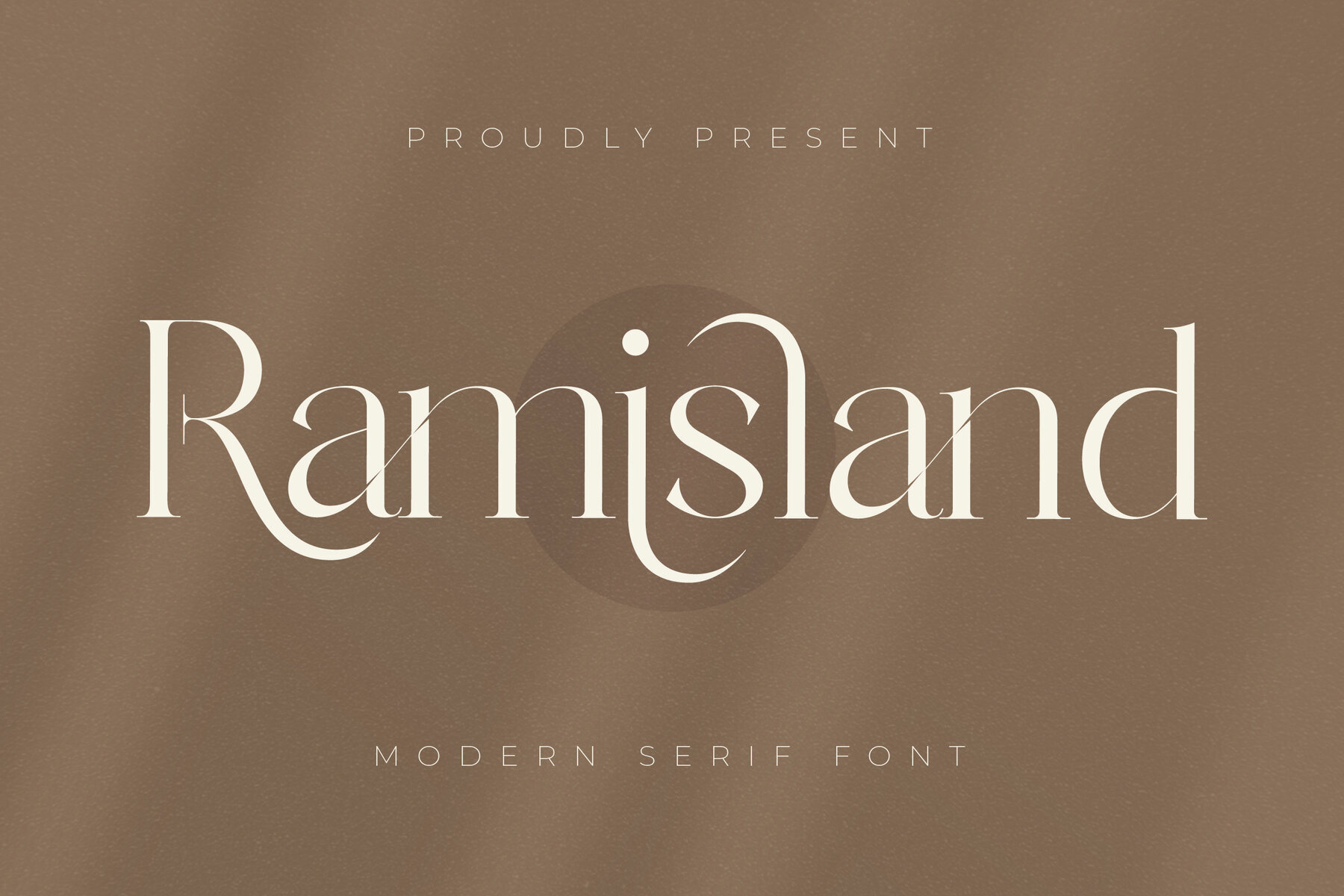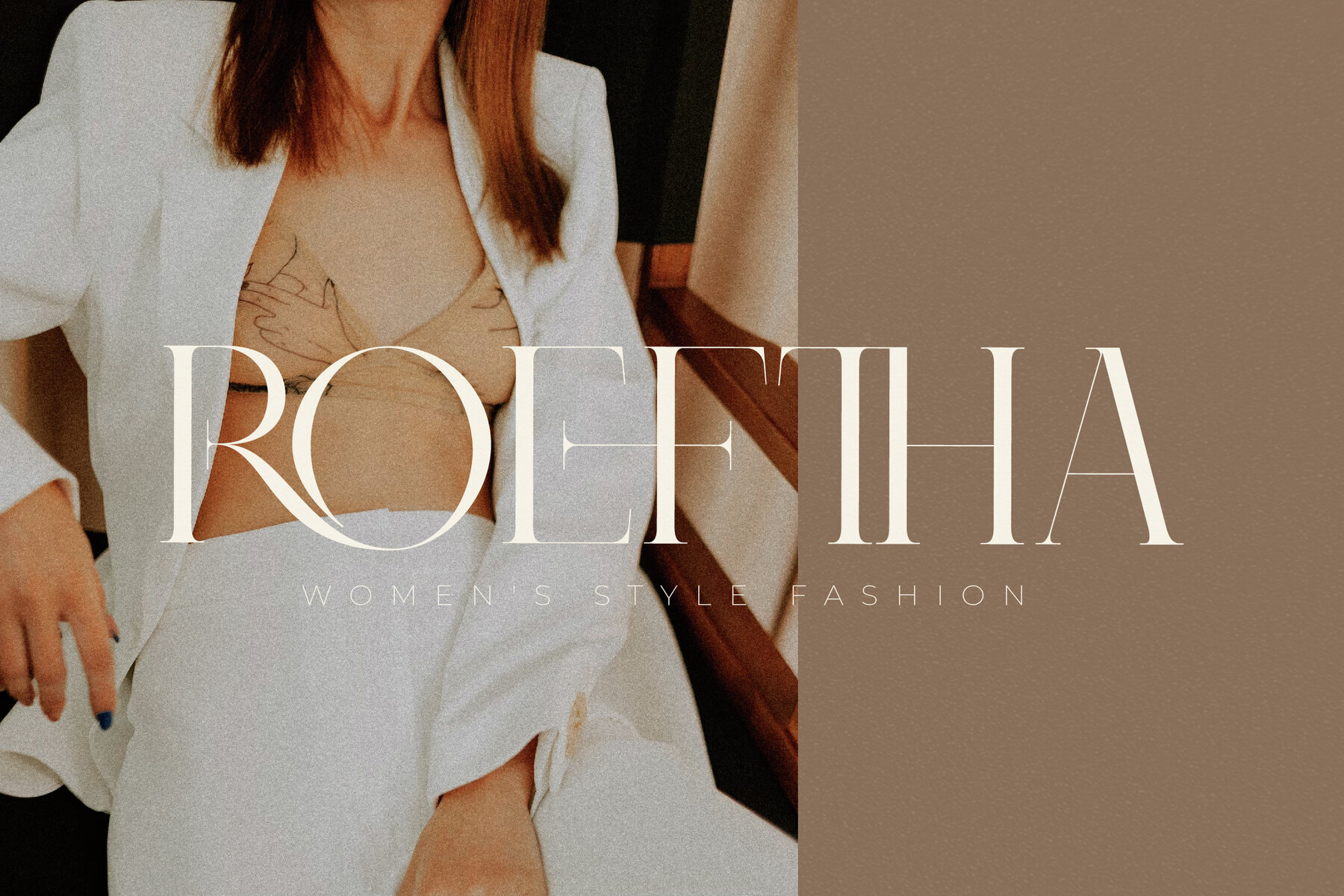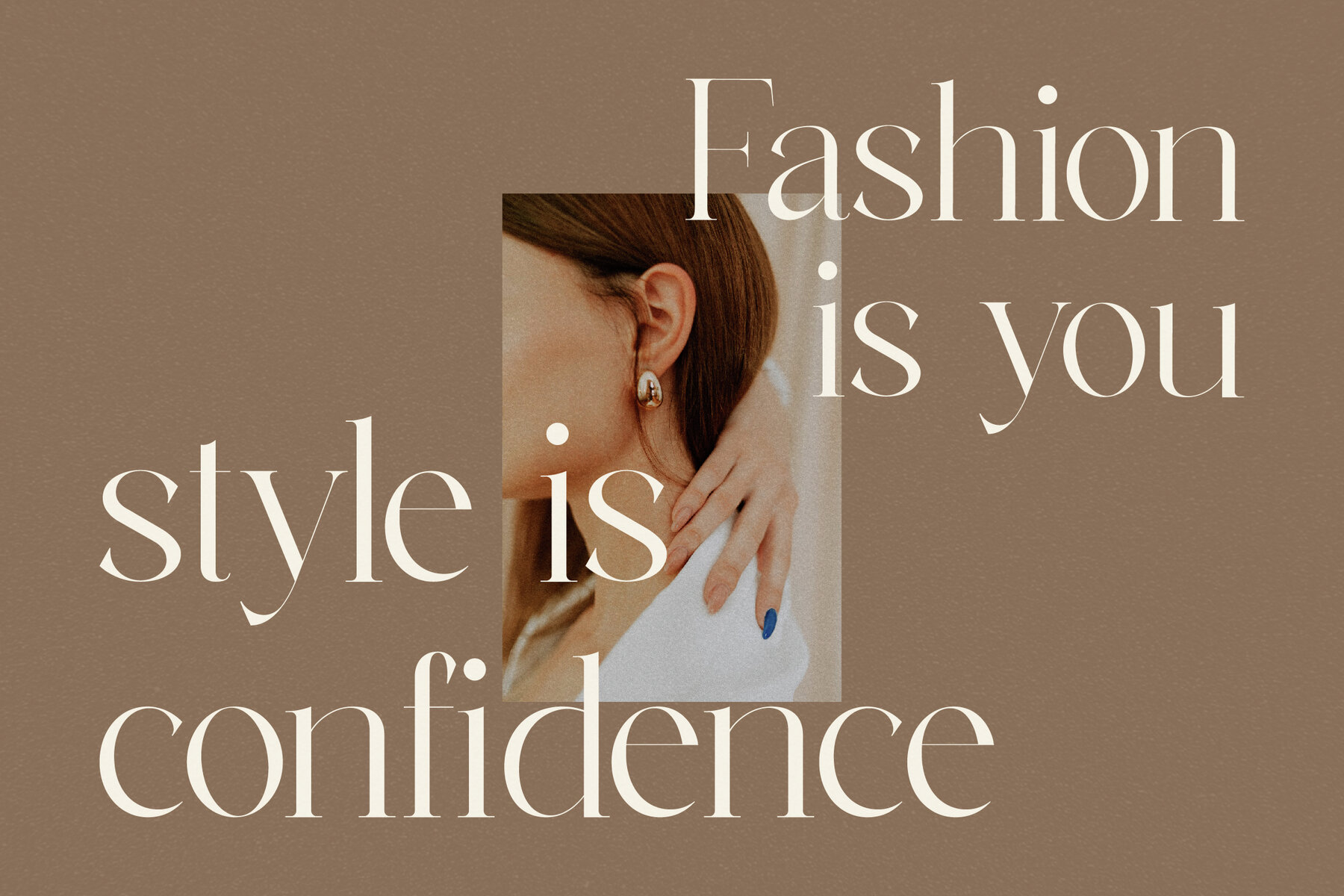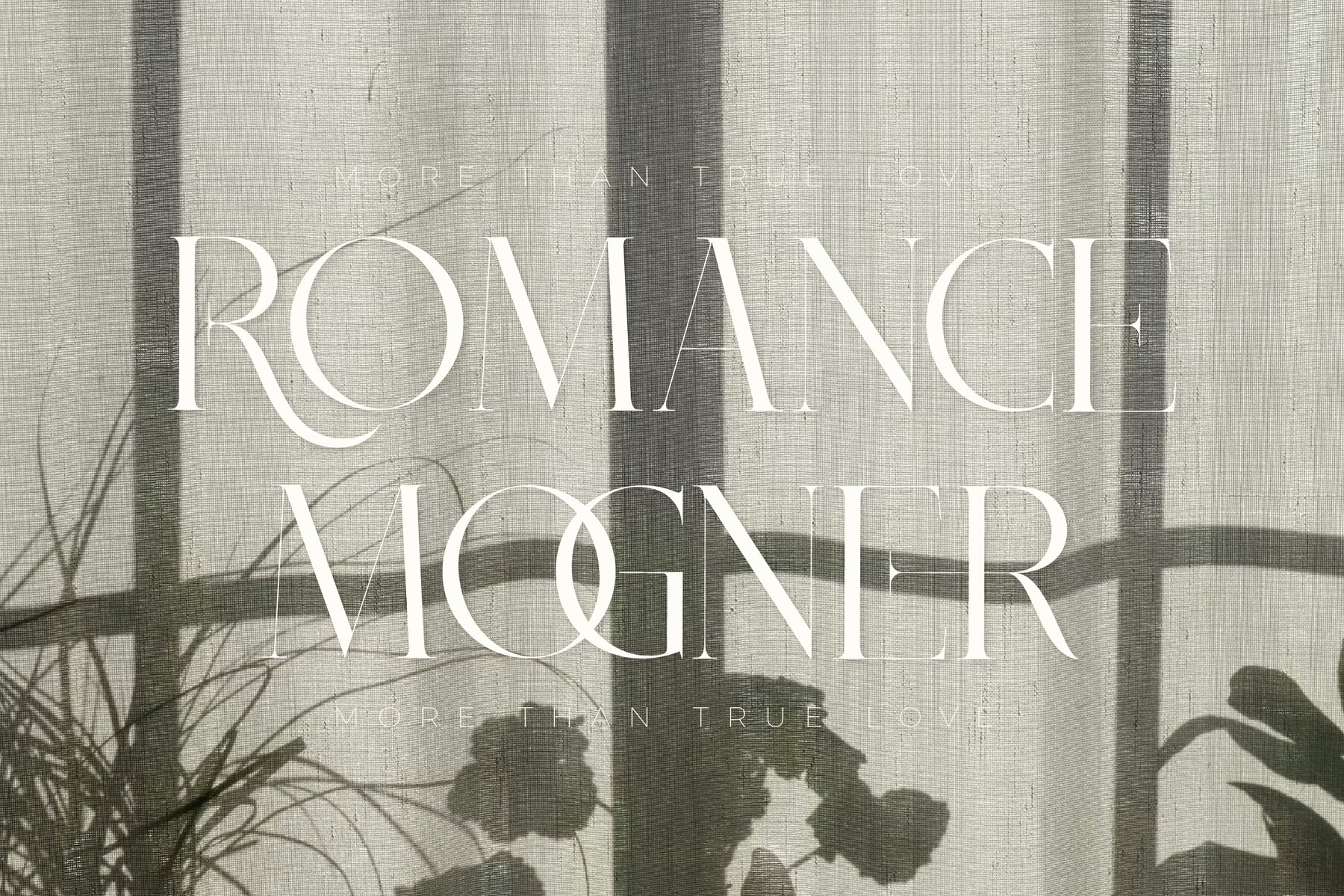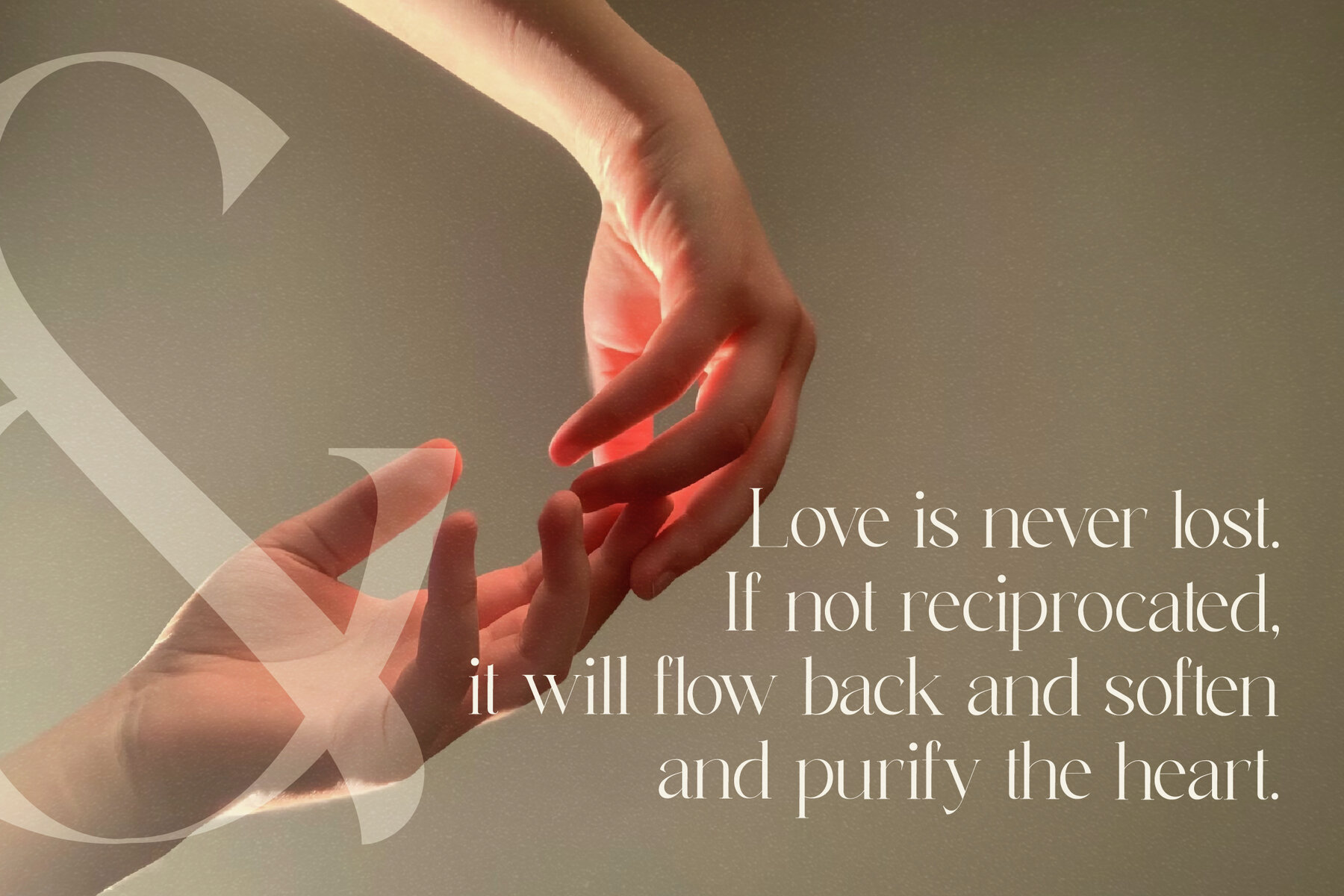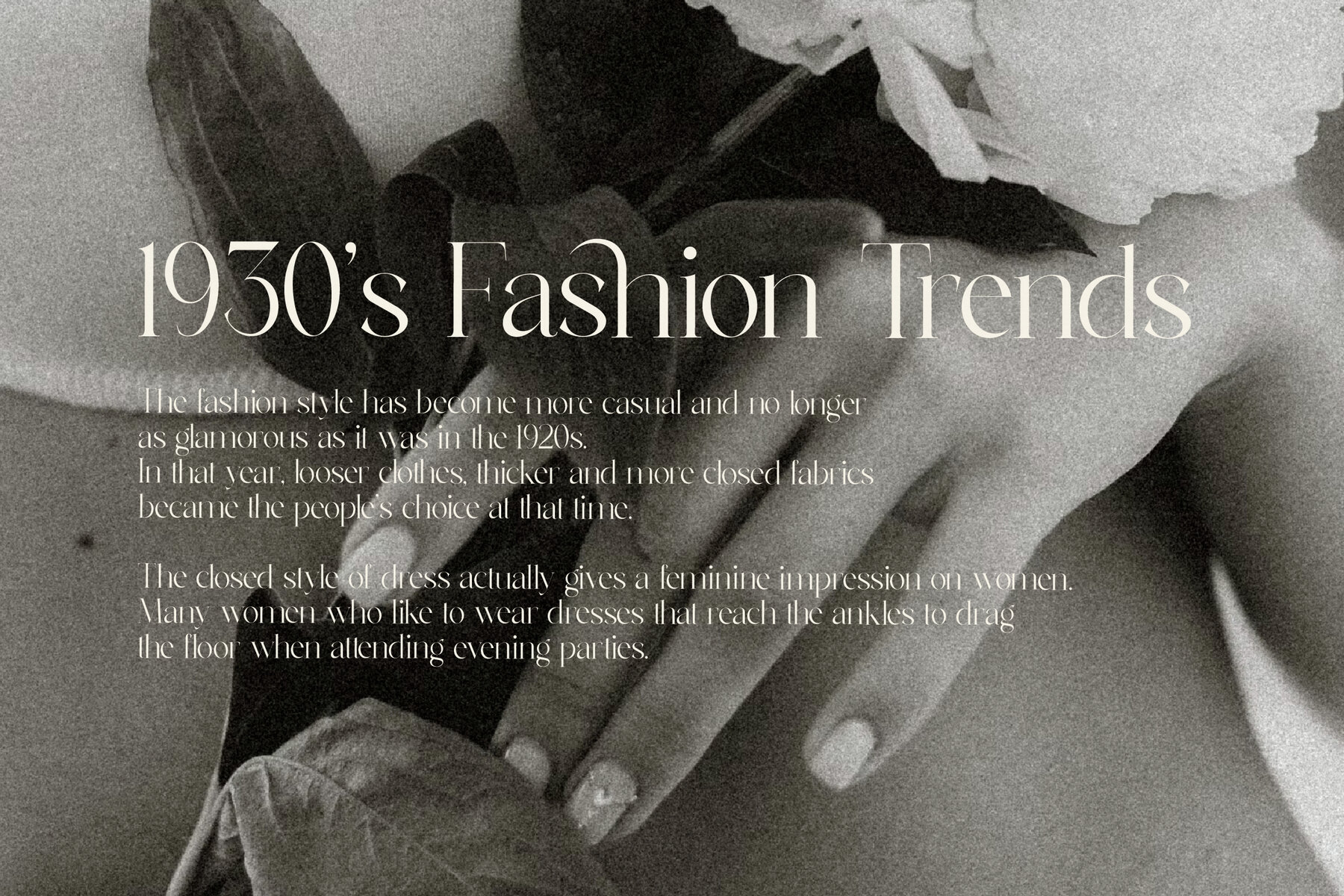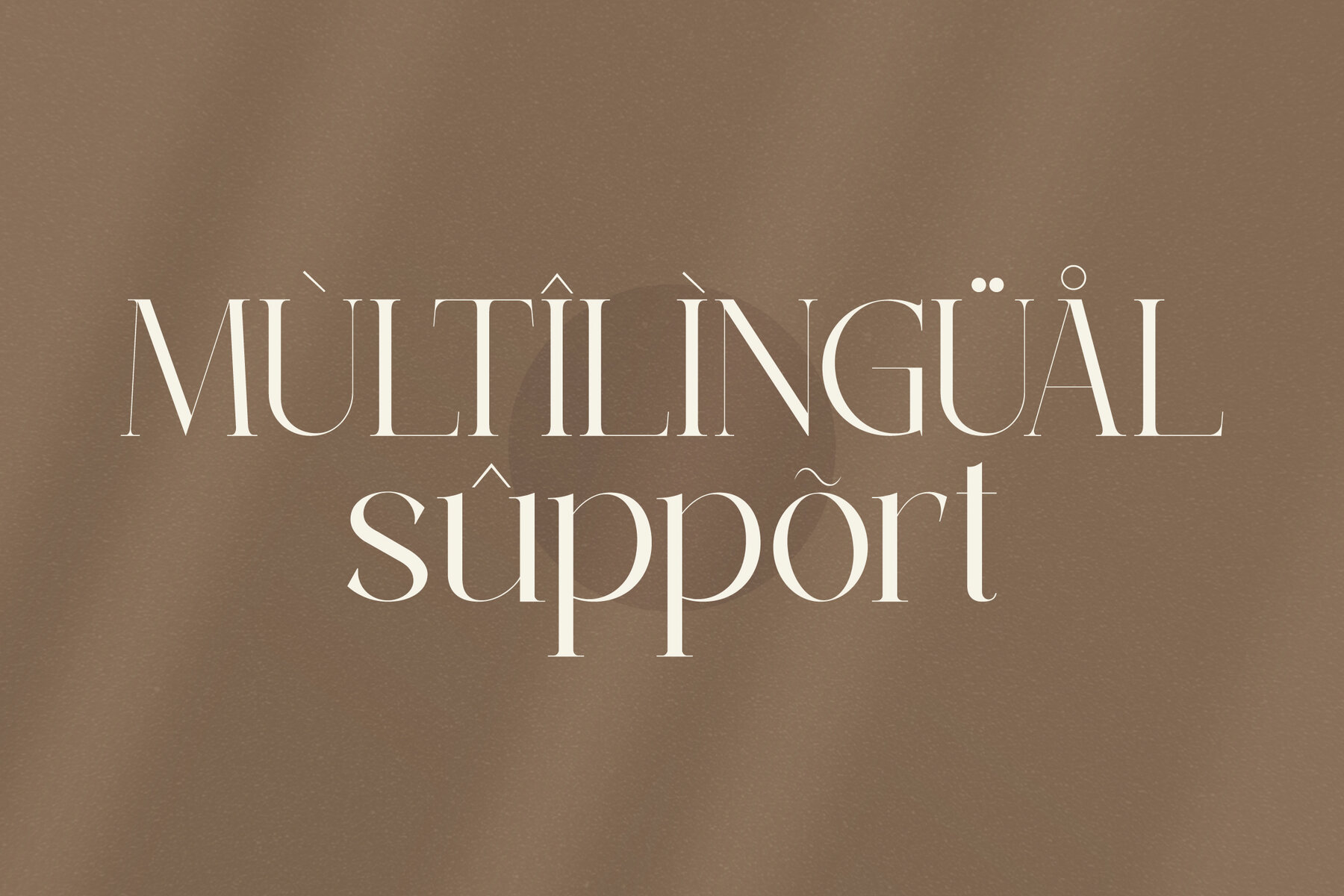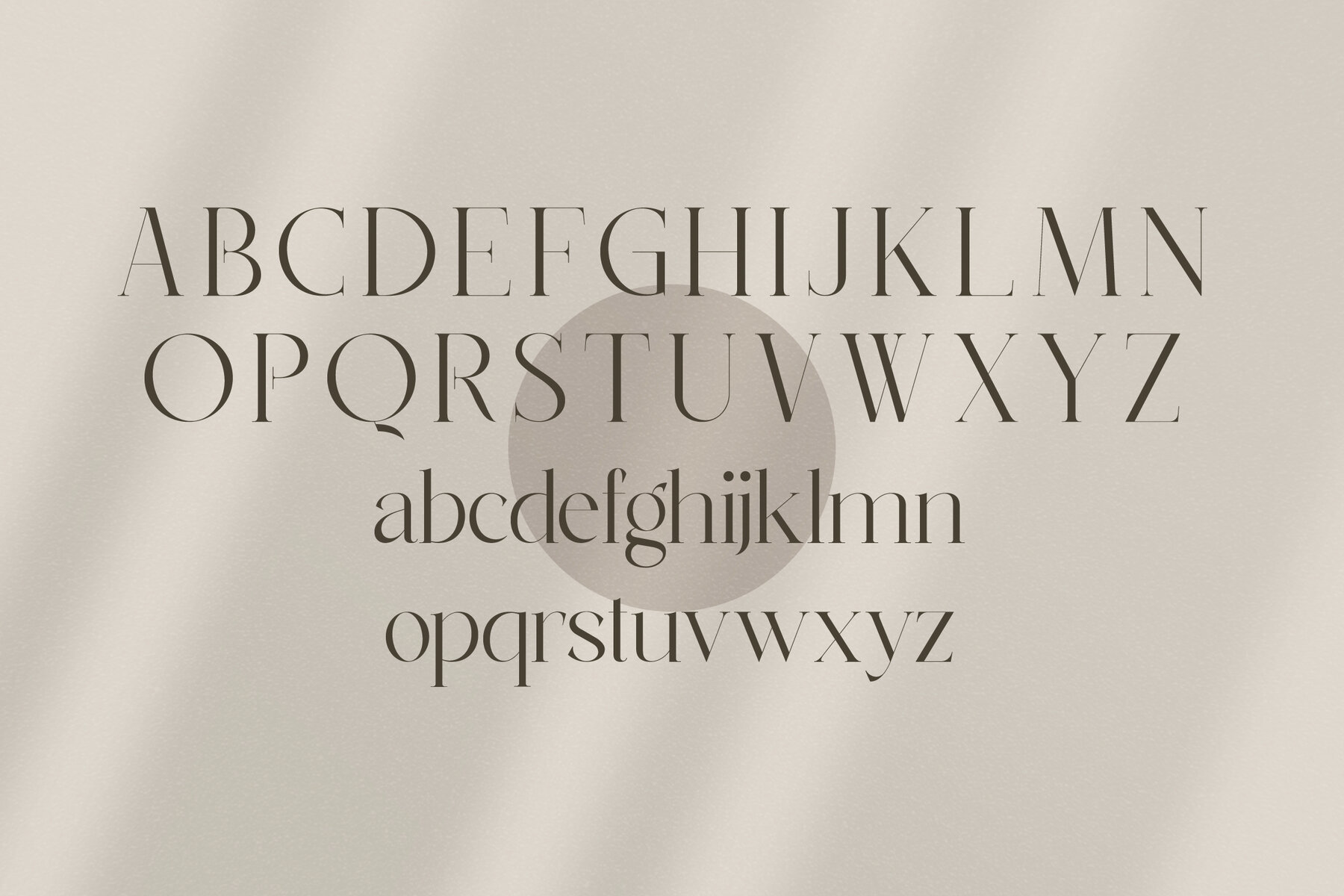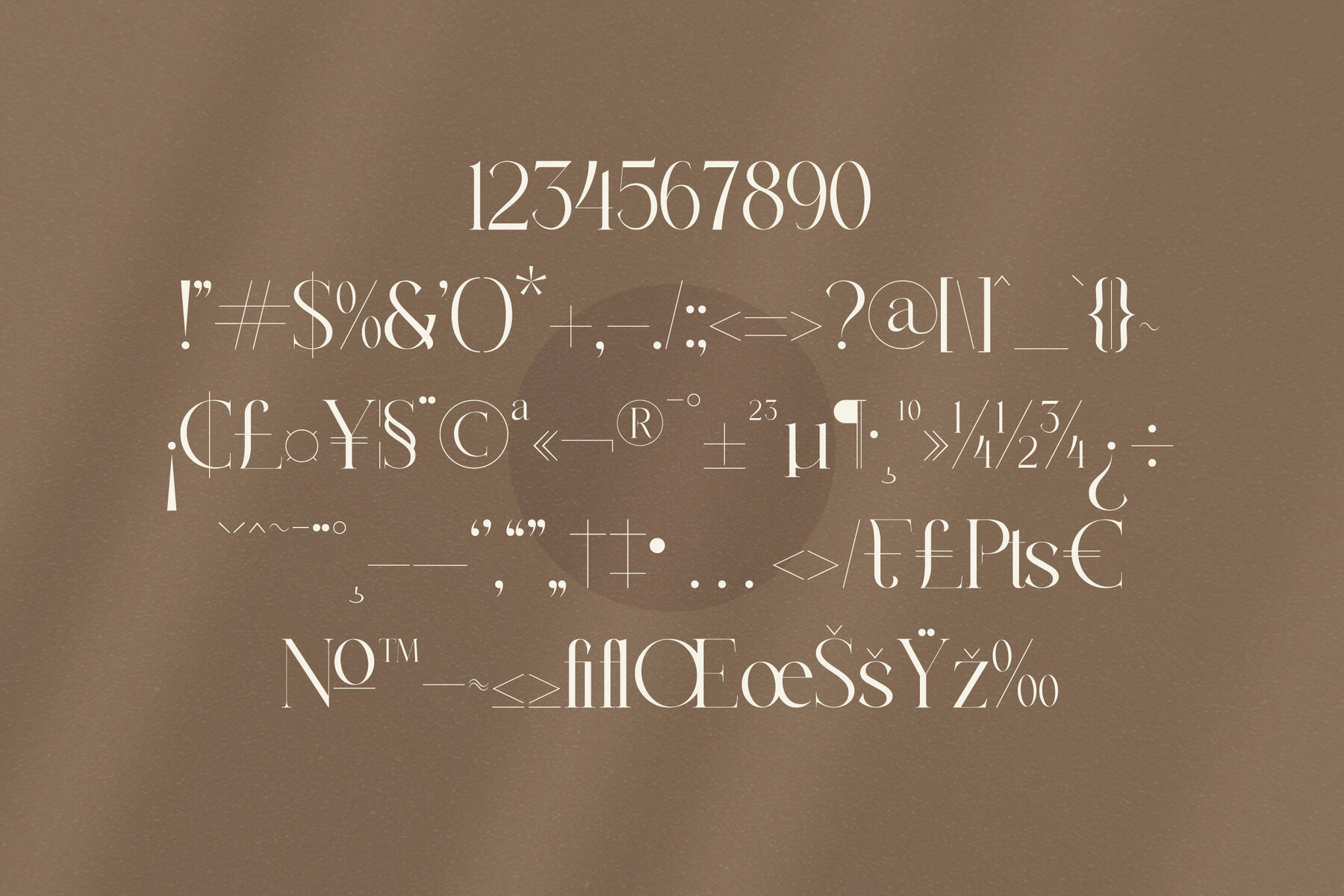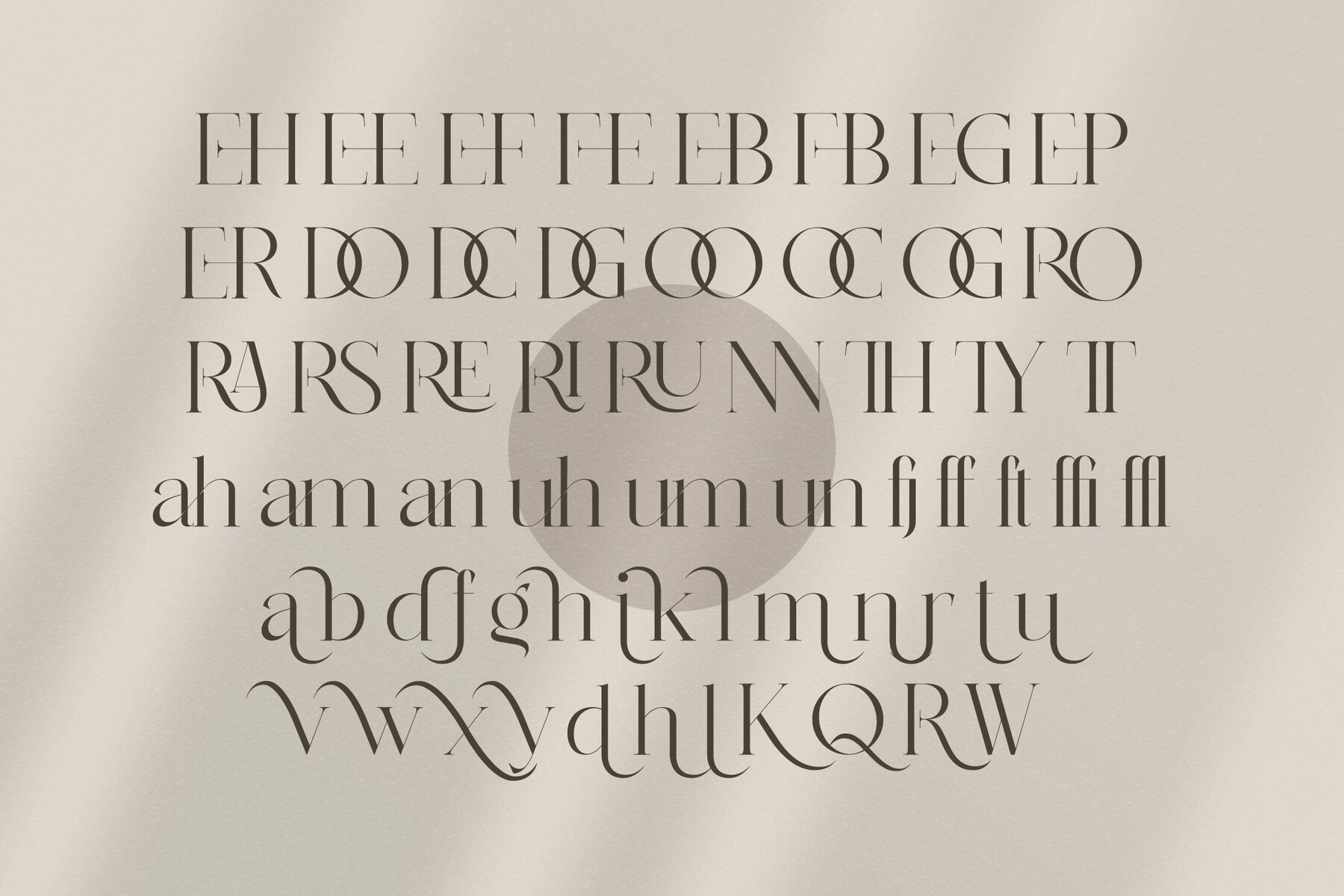
Ramisland Font
Discover the timeless elegance and modern flair of the Ramisland typeface by Storytype Studio. This serif font merges classic design with a contemporary twist, making it an ideal choice for luxurious logos, book and movie titles, fashion brands, magazines, clothing lines, and more. Its versatility and unique style set your projects apart.Ramisland Typeface